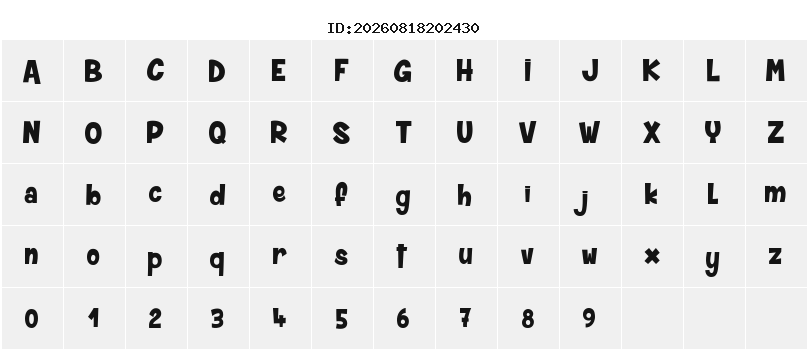
• Font Name: Skater Girls Rock
• Designer: dcoxy Medina Gregory
About Skater Girls Rock.ttf
Skater Girls Rock.ttf is a modern, elegant sans-serif font designed for ultimate readability and visual harmony. Perfect for branding, headlines, web design, and print materials.